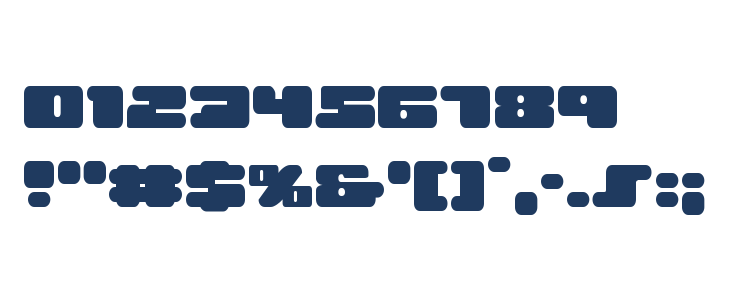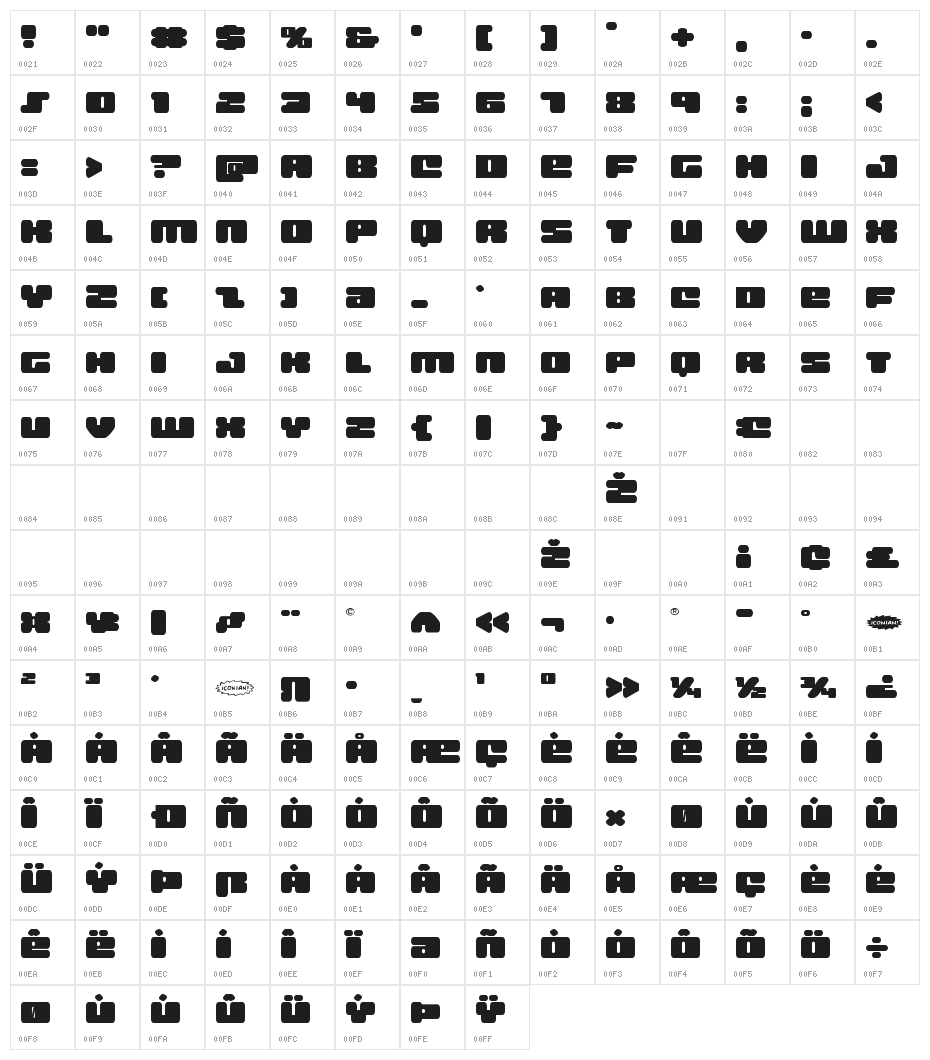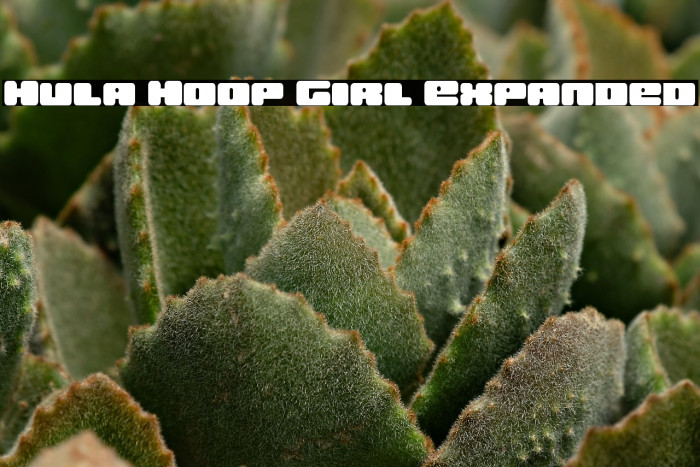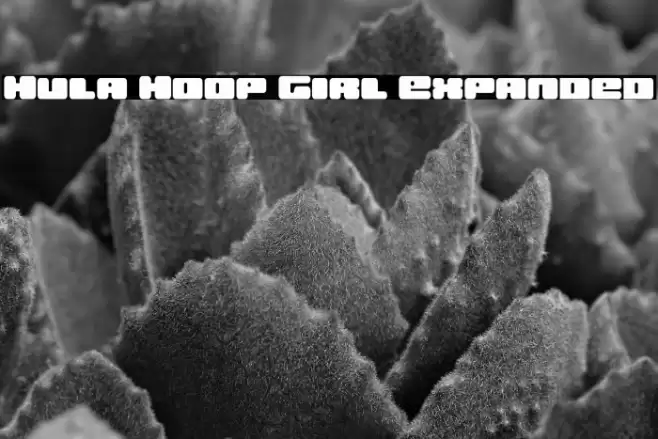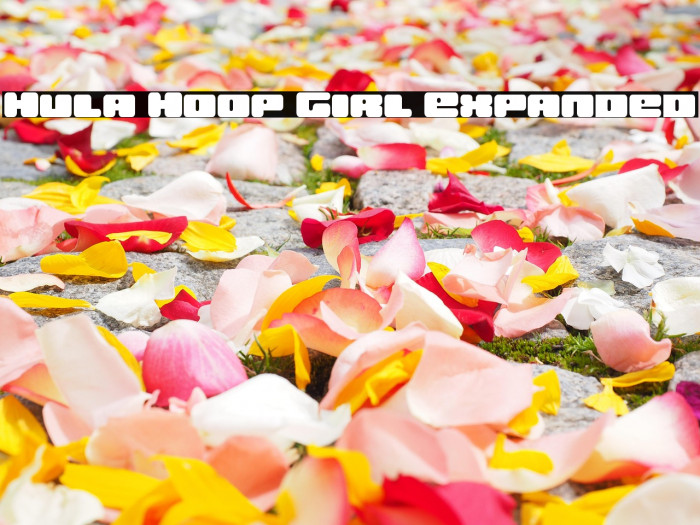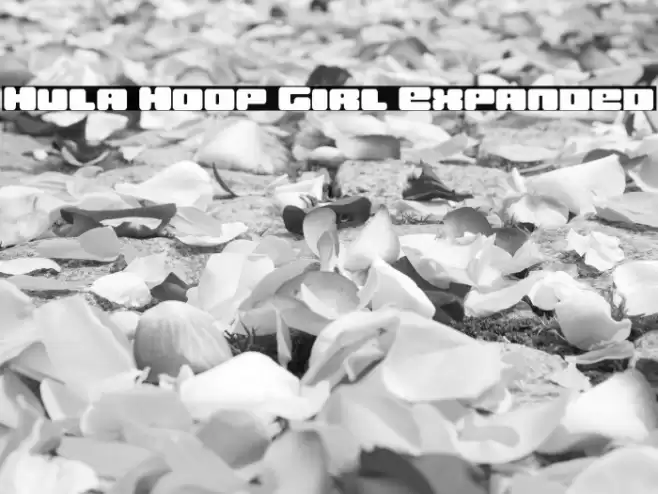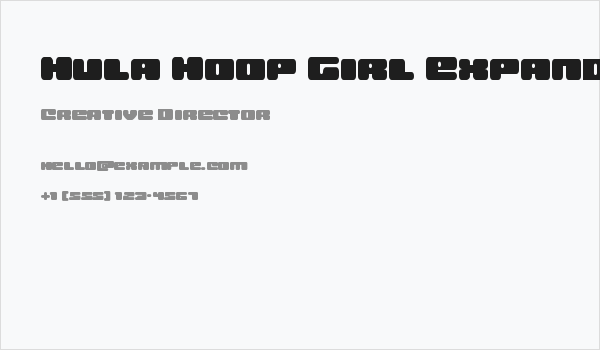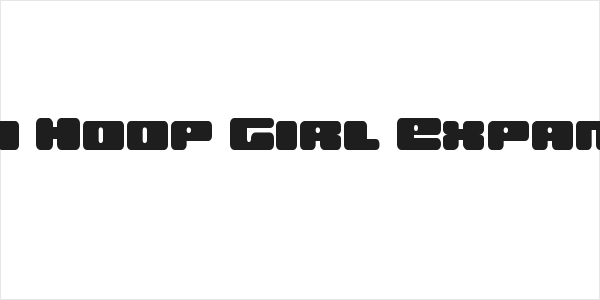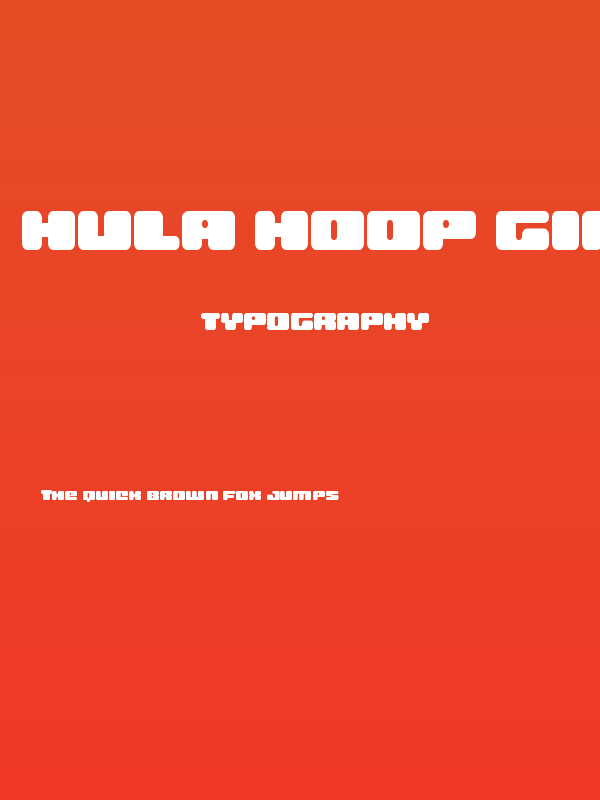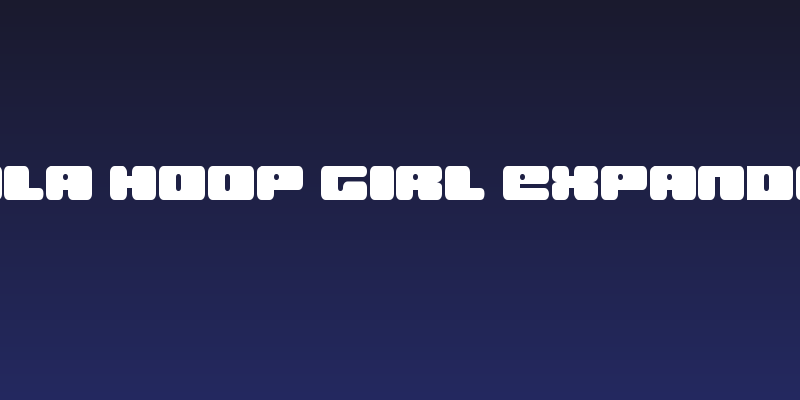
Hula Hoop Girl Expanded Font
Hula Hoop Girl Expanded Description
This font features a bold and playful design with rounded, block-like characters that create a sense of fun and energy. The letters are uniformly thick, with a consistent stroke width that gives the font a cohesive and solid appearance. The rounded edges and soft curves contribute to a friendly and approachable aesthetic, making it suitable for projects that aim to convey warmth and creativity. The font includes a full set of uppercase and lowercase letters, numbers, and a variety of special characters, ensuring versatility in its application. Its unique style makes it stand out, ideal for eye-catching designs.
| Overall Style | Playful, Modern |
| Proposed Projects | Ideal for children's books, playful branding, posters, and creative advertising campaigns. |